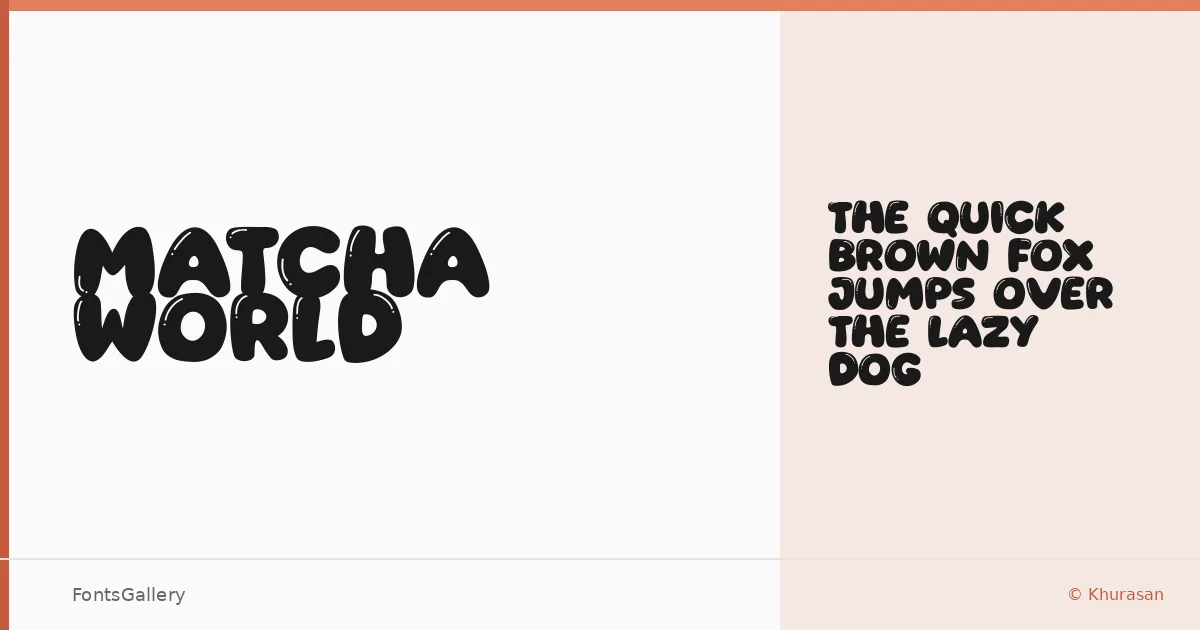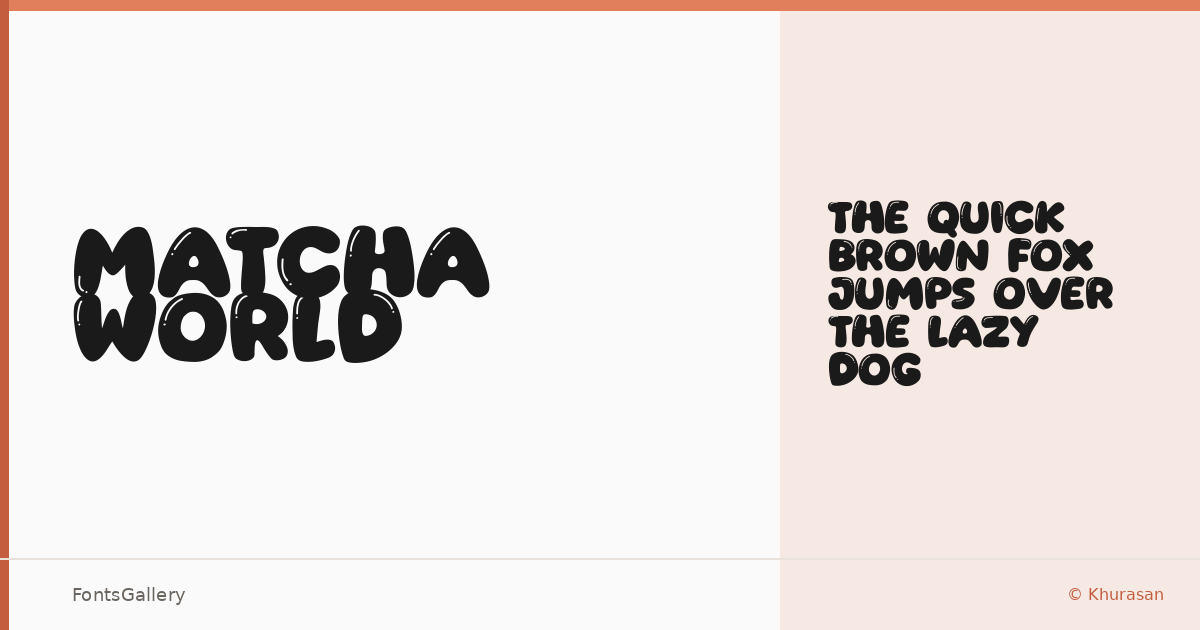
About Matcha World Font
There is an unmistakable bounce to the letterforms here — the kind of confident wobble that makes a display face feel alive rather than constructed. Matcha World comes from Khurasan, and it sits firmly in the display category, built for moments when a headline needs to carry personality rather than simply deliver information.
The single style — Regular — does not try to be a workhorse; it commits fully to being an event. The mood is bold and playful with a whimsical edge that still reads as modern rather than novelty. Available in both TTF and OTF formats, the letterforms have the kind of energy that rewards generous scale, rewarding posters and logos far more than body copy.
This face earns its keep in branding, logo lockups, social media graphics, poster headlines, and T-shirt design — anywhere the type itself needs to carry visual weight before the reader even processes the words. For pairing, the neutrality of Helvetica or Josefin Sans makes a clean counterpoint, while Canela, Asap, or ABC Arizona offer varying degrees of warmth if you want something less strictly utilitarian alongside it.